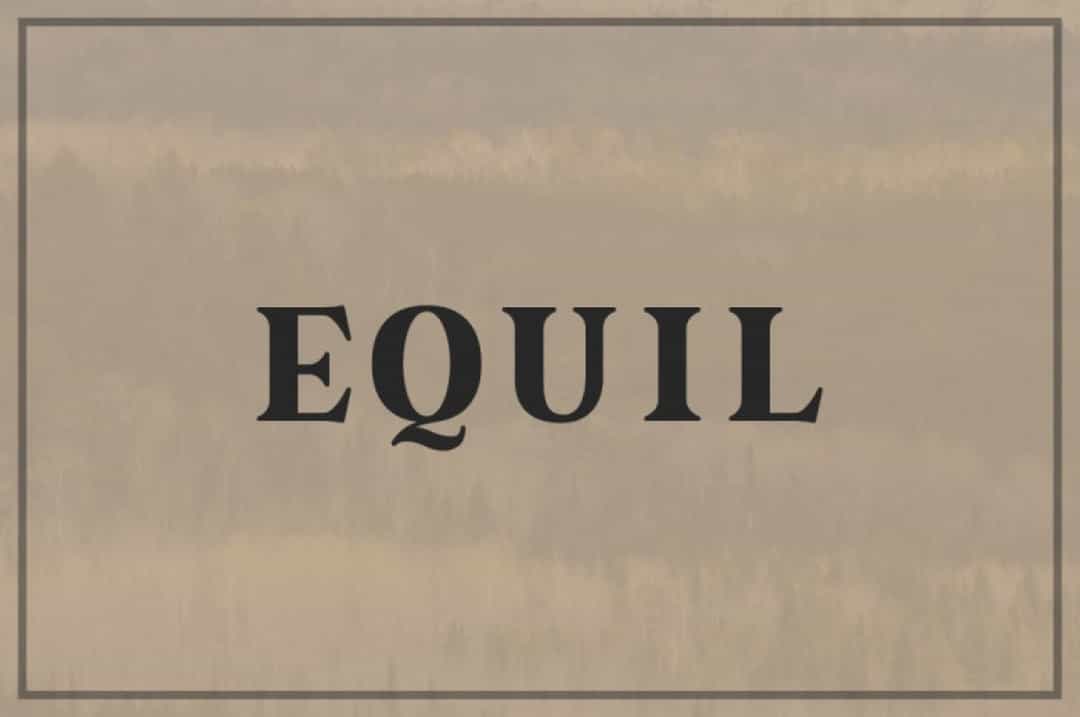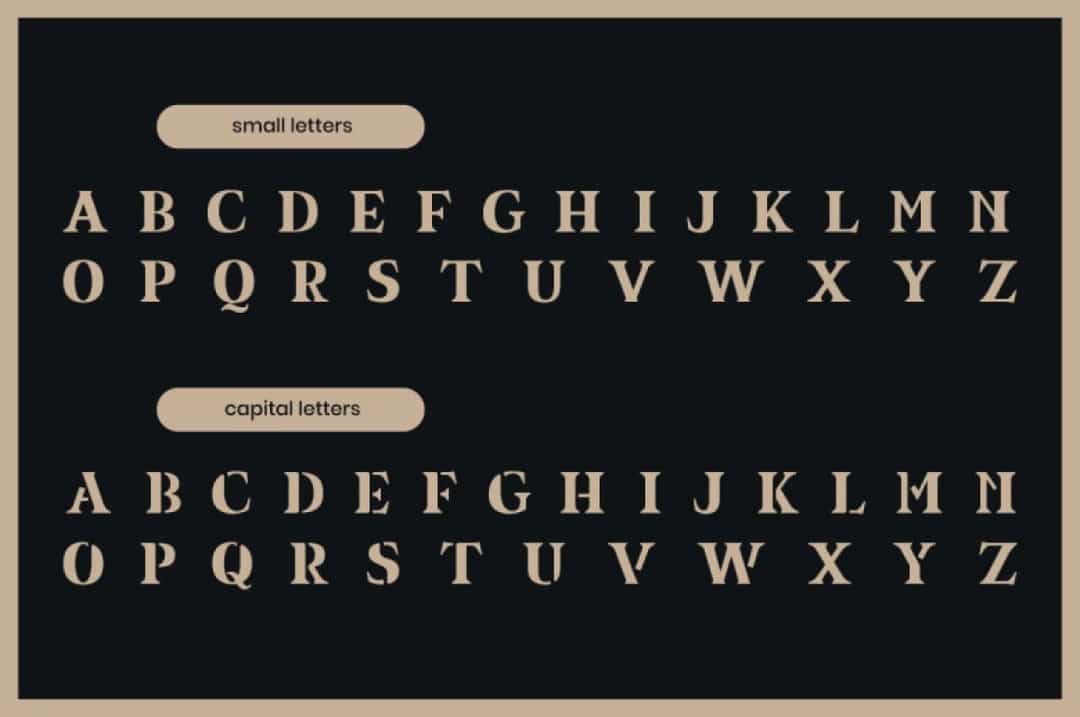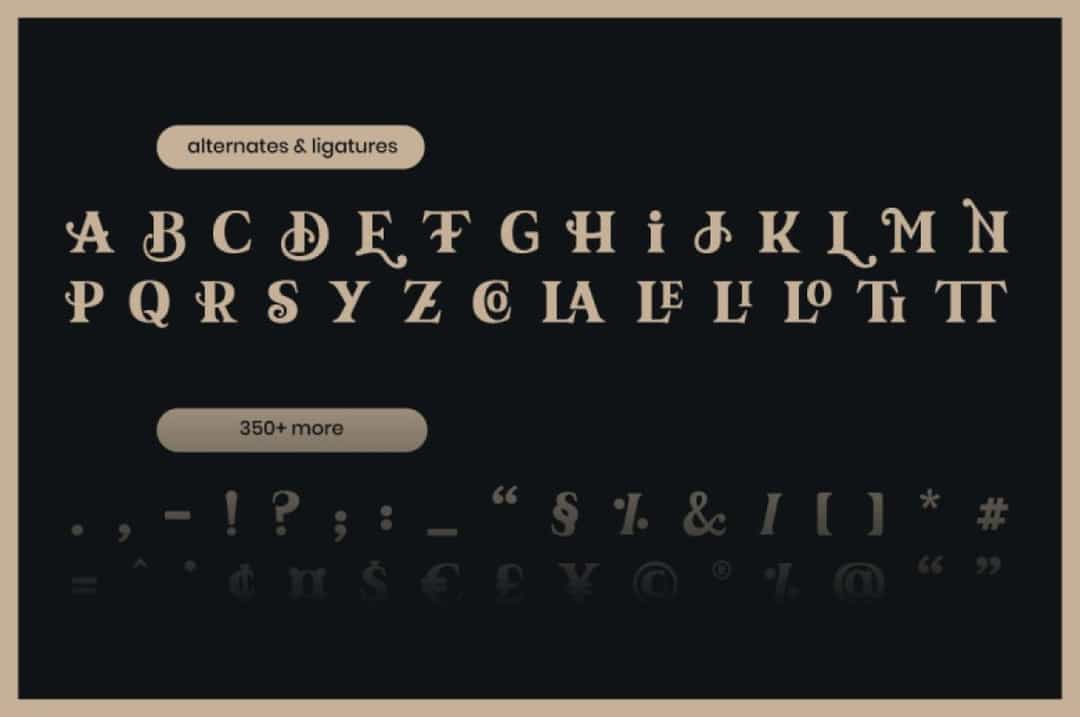
Equil is a simple and casual serif font with an undeniably clean feel. With its neat and beautiful arrangement of letters, this typeface will look outstanding in both formal and non-formal designs.